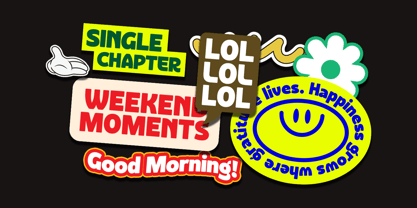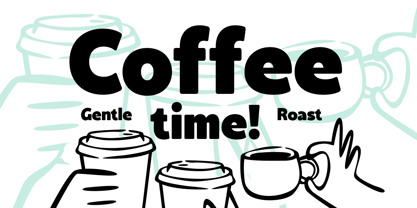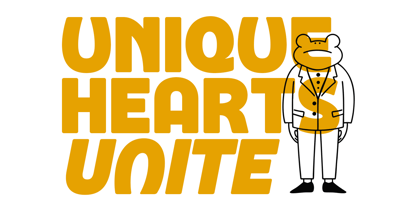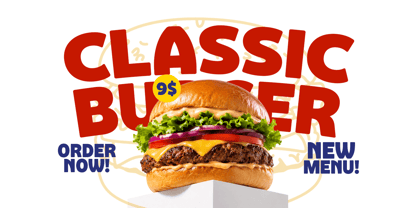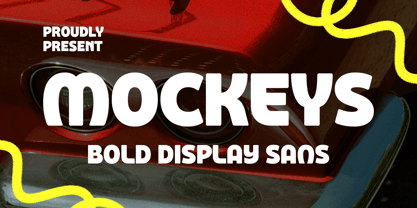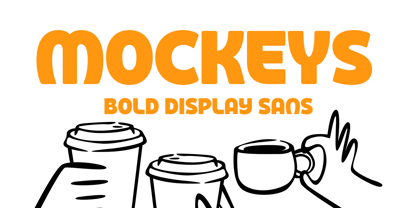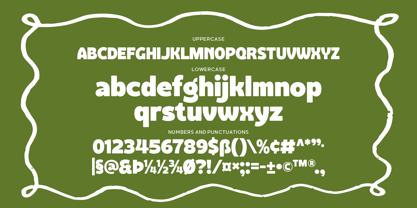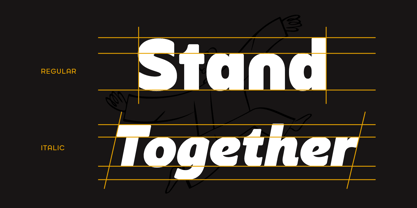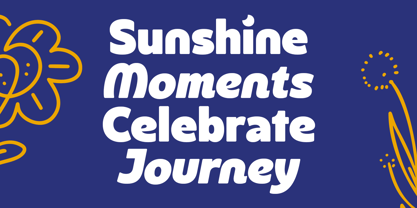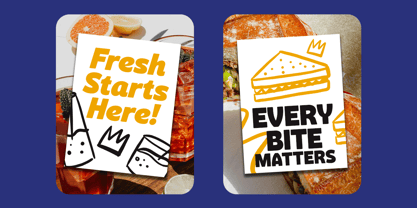
Mockeys
La famille de polices Mockeys a été conçue par Ahmad Ramzi Fahruddin et publiée par Arterfak Project. Mockeys contient 2 styles et options de package familial. En savoir plus sur cette famille
Mockeys is a bold display sans that instantly feels friendly. Unlike many heavy display fonts that lean toward a powerful or masculine personality, Mockeys embraces a softer, more welcoming voice through its rounded forms, generous proportions, and playful rhythm. It sits somewhere between the warmth of Cooper Black and the clarity of a modern geometric sans, but without feeling overly retro or tied to a specific era. The result is a typeface that feels familiar, approachable, and effortlessly contemporary.
Designed to make headlines memorable, Mockeys shines in branding, packaging, café identities, food products, merchandise, posters, and social content. Its bold silhouette commands attention, while the carefully balanced curves keep every word approachable and easy to read. Whether paired with clean minimal layouts or colorful illustrations, Mockeys adds just enough personality to make a design feel alive—confident without being loud, playful without becoming childish.
• Uppercase
• Lowercase
• Numbers
• Punctuation & symbols
• Stylistic alternates
• Multilingual support